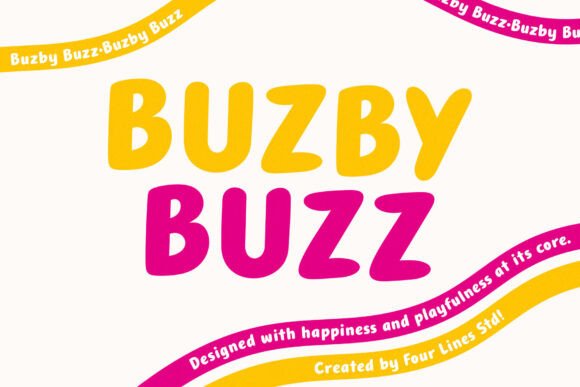
Introducing Buzby Buzz – The Ultimate Playful Display Font for Your Design Projects
In the world of digital design, fonts play a crucial role in conveying the tone and personality of a brand or project. When it comes to creating engaging and visually appealing content, the right font can make all the difference. This is where Buzby Buzz comes in – a charming and playful display font designed to bring a touch of fun to any design project. In this article, we’ll explore the unique features of Buzby Buzz, its uses, and why it’s the perfect addition to your font collection.
The Unique Features of Buzby Buzz
Buzby Buzz is a one-of-a-kind display font that boasts soft, rounded edges that resemble gentle bubbles. This distinctive feature sets it apart from other fonts and gives it a playful, whimsical feel that’s perfect for designs aimed at a younger audience or those looking to add a touch of warmth and personality to their content.
The font’s unique design makes it highly versatile, suitable for a wide range of applications, from children’s products and social media graphics to posters, flyers, and more. Whether you’re a designer, artist, or simply a DIY enthusiast, Buzby Buzz is an excellent choice for anyone looking to add a dash of fun and creativity to their projects.
The Benefits of Using Buzby Buzz in Your Designs
So, why choose Buzby Buzz for your design projects? Here are just a few benefits of using this delightful font:
- Instant Personality: Buzby Buzz adds a touch of whimsy and playfulness to any design, making it perfect for brands or projects looking to establish a friendly and approachable tone.
- Versatility: The font’s versatility makes it suitable for a wide range of applications, from digital content to print materials.
- Emotional Connection: The soft, rounded edges of Buzby Buzz evoke a sense of warmth and comfort, creating an instant emotional connection with your audience.
- Easy to Read: Despite its playful design, Buzby Buzz remains easy to read, making it perfect for headlines, titles, and short paragraphs of text.
Who Can Benefit from Using Buzby Buzz?
Buzby Buzz is an excellent addition to any designer’s font collection, regardless of their niche or specialty. Here are a few examples of professionals and businesses that can benefit from using this charming font:
- Children’s Product Designers: Buzby Buzz is perfect for designing children’s books, toys, games, and other products that require a playful and engaging visual identity.
- Social Media Managers: The font’s fun and playful design makes it ideal for social media graphics, posts, and stories that aim to capture the attention of a younger audience.
- Graphic Designers: Buzby Buzz can be used in a wide range of graphic design projects, from posters and flyers to brochures and business cards.
- Artists and Crafters: The font’s whimsical design makes it perfect for artists and crafters looking to add a touch of personality to their work, whether it’s in handmade products, paintings, or digital art.
How to Use Buzby Buzz in Your Designs
Using Buzby Buzz in your designs is easy and straightforward. Here are a few tips to get you started:
- Pair it with Other Fonts: Buzby Buzz can be paired with other fonts to create a unique and visually appealing typography combination.
- Experiment with Colors: The font’s playful design makes it perfect for experimenting with bright and bold colors that add to its whimsical feel.
- Use it for Headlines and Titles: Buzby Buzz is perfect for headlines, titles, and short paragraphs of text, making it an excellent choice for adding visual interest to your designs.
- Don’t Be Afraid to Get Creative: The font’s versatility makes it perfect for experimenting with different design styles and techniques, so don’t be afraid to get creative and try new things.
Tips for Getting the Most Out of Buzby Buzz
To get the most out of Buzby Buzz, here are a few tips to keep in mind:
- Keep it Simple: While Buzby Buzz is a playful font, it’s essential to keep your design simple and easy to read to ensure your message gets across.
- Use it Consistently: Using Buzby Buzz consistently across your designs helps to establish a strong visual identity and reinforces your brand’s personality.
- Experiment with Different Sizes: The font’s unique design makes it perfect for experimenting with different sizes and scales, so don’t be afraid to try new things.
- Have Fun: Most importantly, have fun with Buzby Buzz! The font’s playful design makes it perfect for adding a touch of whimsy and creativity to your designs.
In conclusion, Buzby Buzz is a charming and playful display font that’s perfect for adding a touch of fun and personality to any design project. Its unique features, versatility, and emotional resonance make it an excellent choice for designers, artists, and businesses looking to establish a friendly and approachable tone. Whether you’re designing for children, creating social media graphics, or simply looking to add a dash of whimsy to your content, Buzby Buzz is an excellent addition to your font collection.
- What is Buzby Buzz used for? Buzby Buzz can be used in a wide range of design projects, from children’s products and social media graphics to posters, flyers, and more.
- Is Buzby Buzz easy to read? Yes, despite its playful design, Buzby Buzz remains easy to read, making it perfect for headlines, titles, and short paragraphs of text.